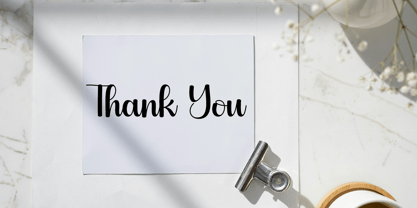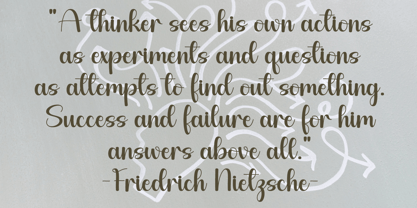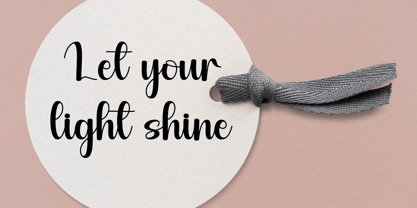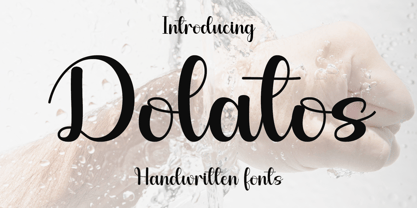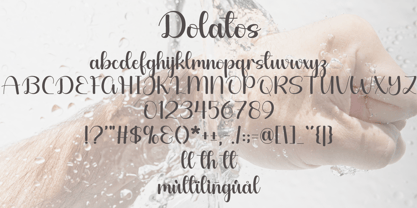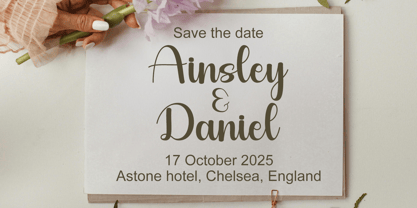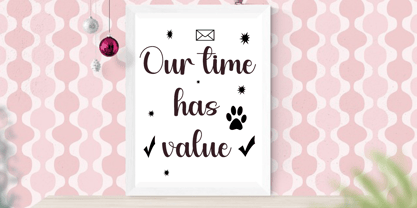
Dolatos
by Hardiboy Design
The Dolatos Font Family was designed by Hardiman Siswanto and published by Hardiboy Design. Dolatos contains 1 styles.
Dopamin latest style letters are perfect for wall displays, wedding invitations, social media post logos, advertisements, product packaging, product designs, labels, photography, watermarks, invitations, stationery, and any project that requires handwritten taste. This font is PUA encoded which means you can access all of the glyphs and alternates with ease!
Designers: Hardiman Siswanto
Publisher: Hardiboy Design
Foundry: Hardiboy Design